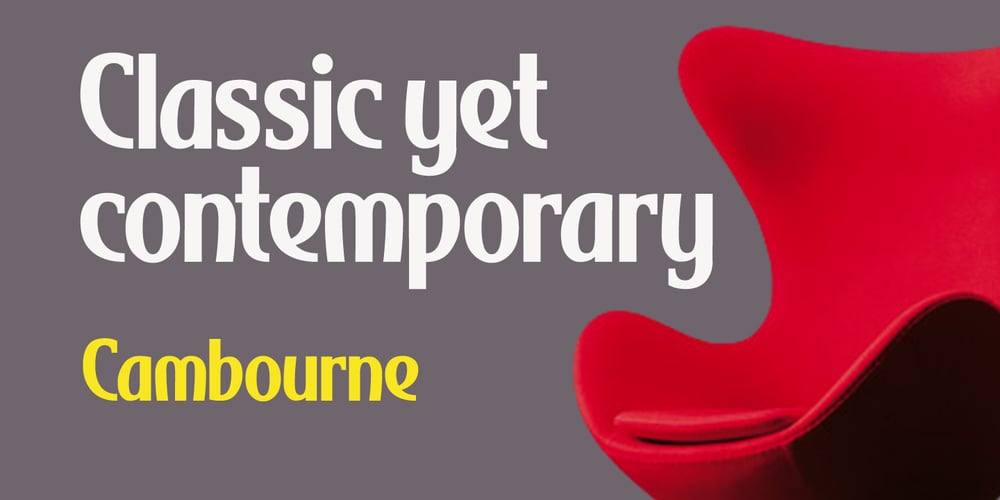
Cambourne Font Family was designed by Keith Tricker and published by Studio K. Cambourne contains 2 styles and family package options. Classic yet contemporary, Cambourne is a crisp, curvaceous and timelessly elegant display font ideal for branding or promoting luxury goods.